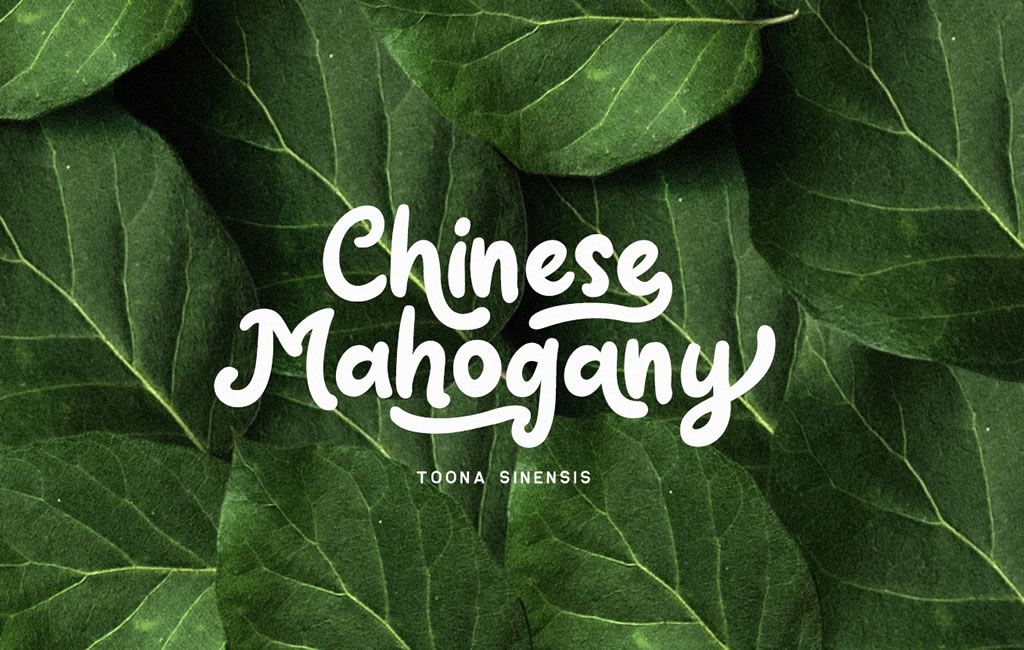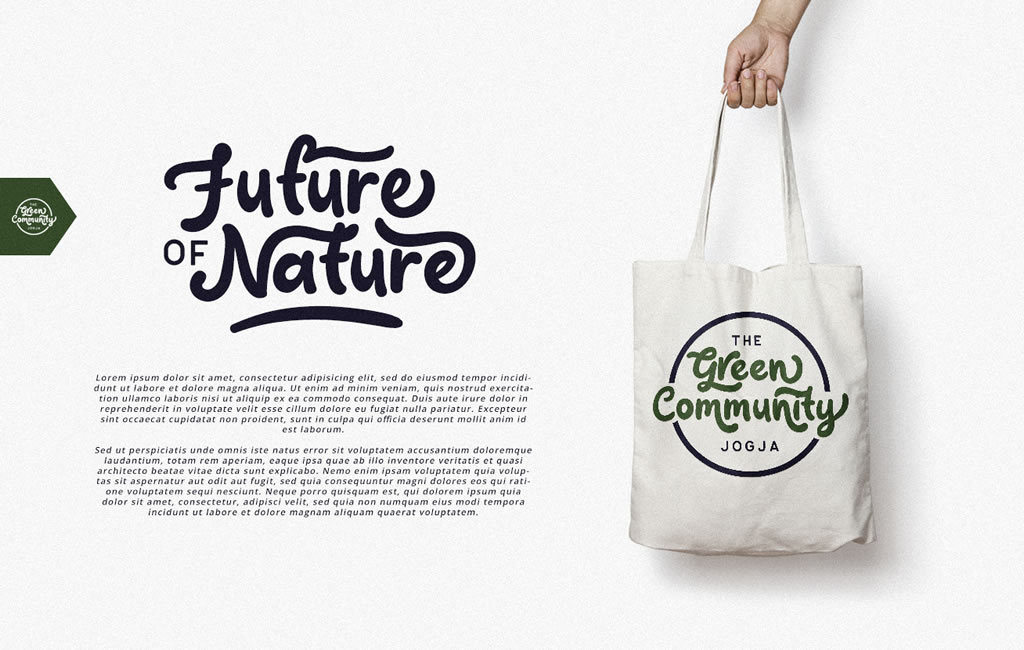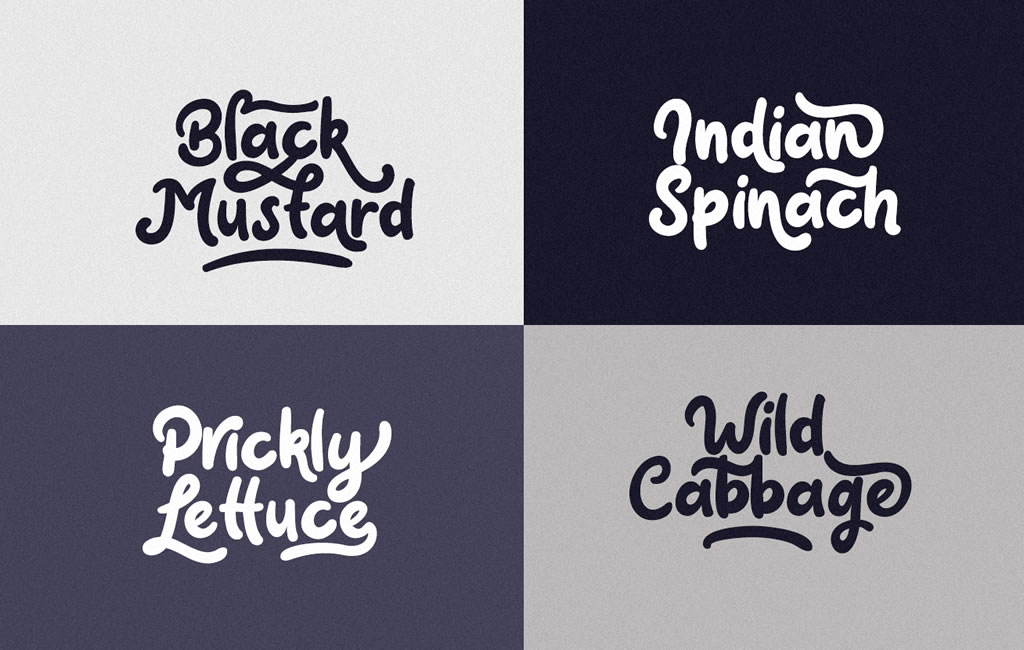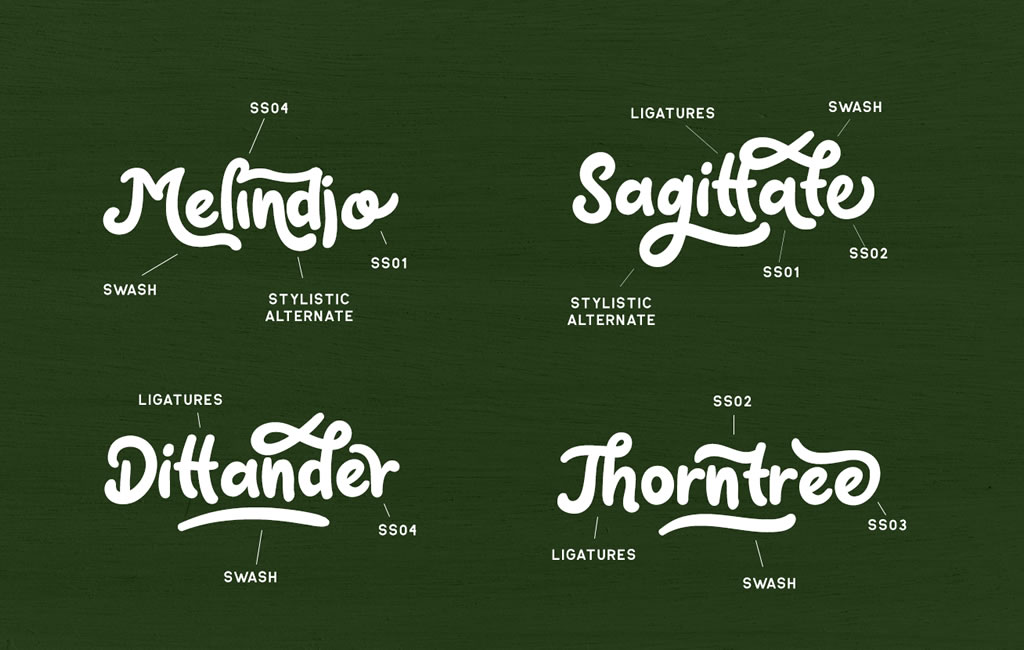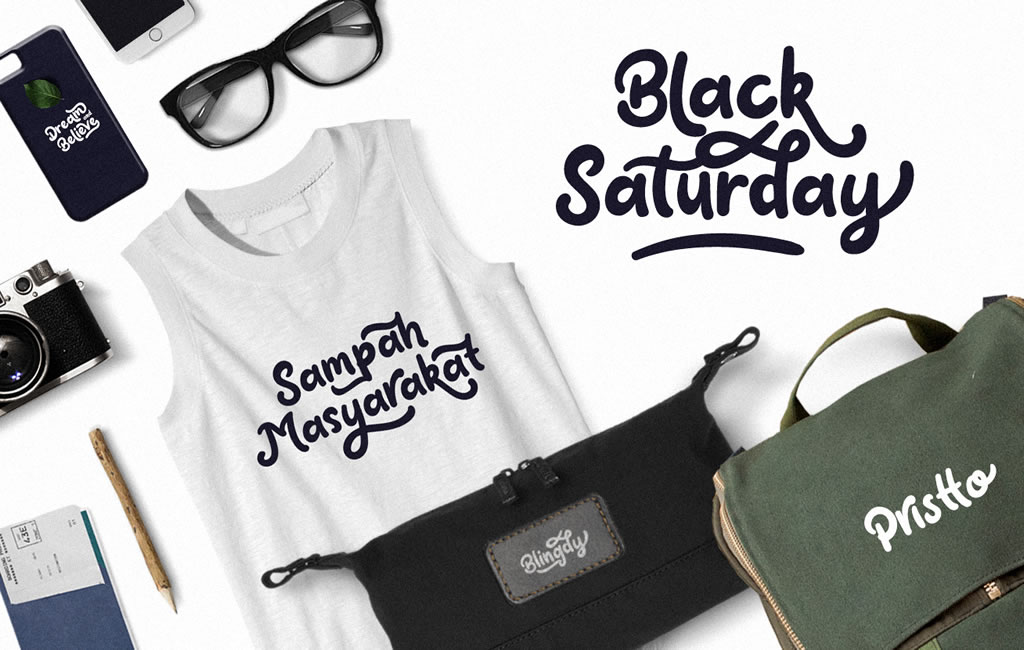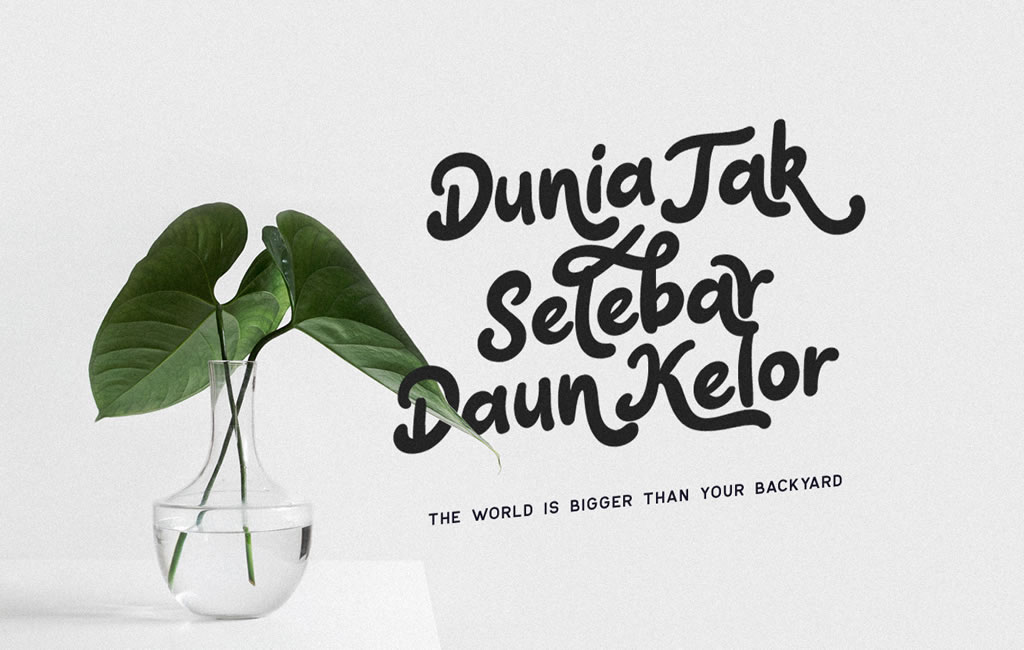
Introduction to Claytonia Font
Claytonia is a bold script typeface with a fluid appearance.
It’s completely drawn by hand and features many fun opentype features The bold expressive letters work well for both branding and personal projects.
Key Features of Claytonia Font